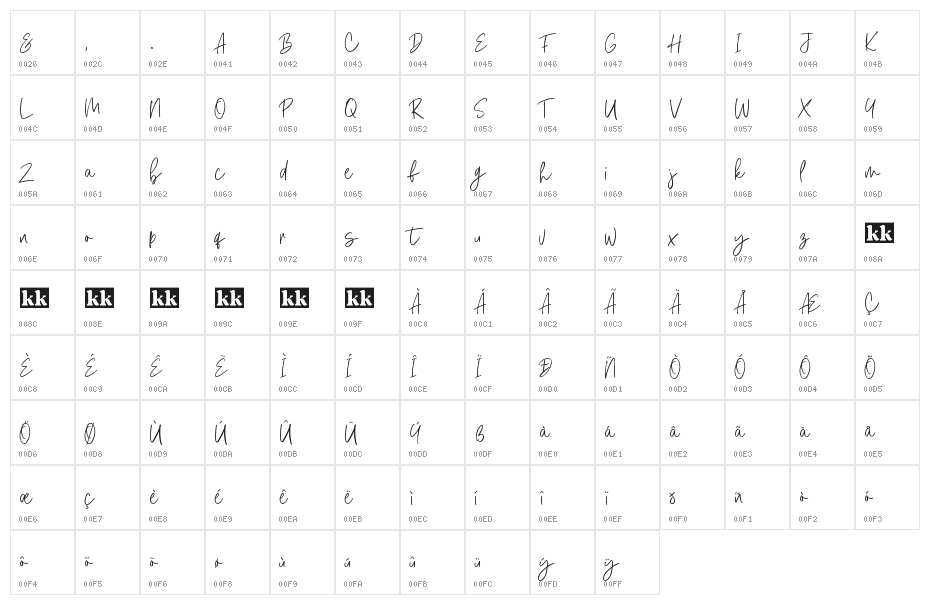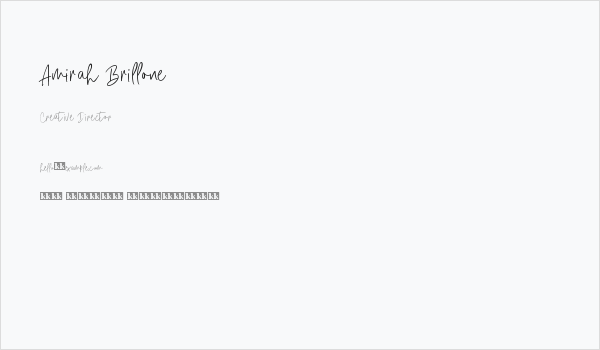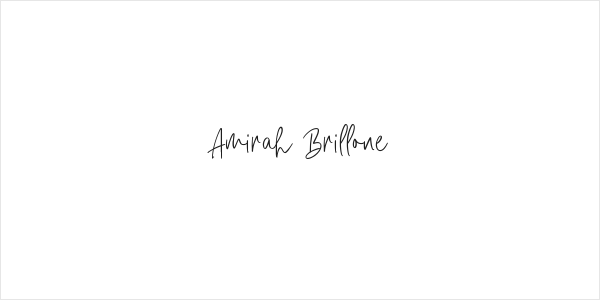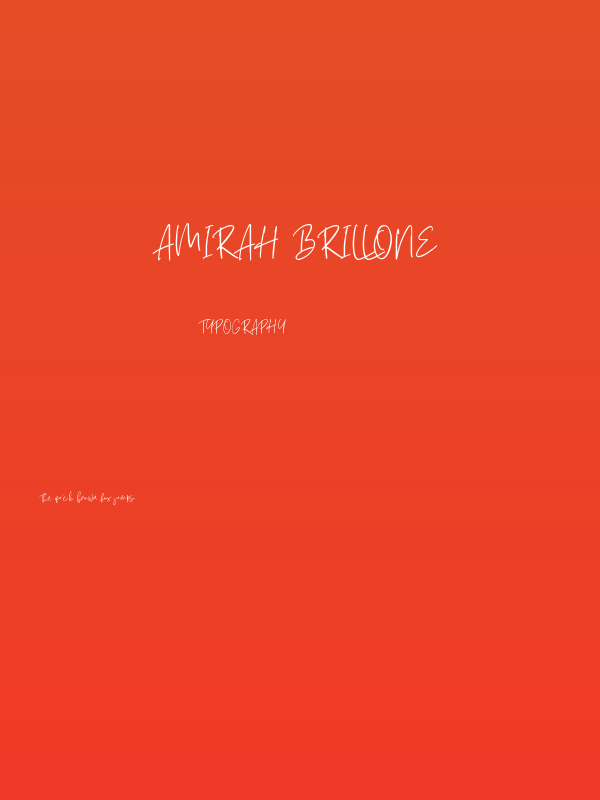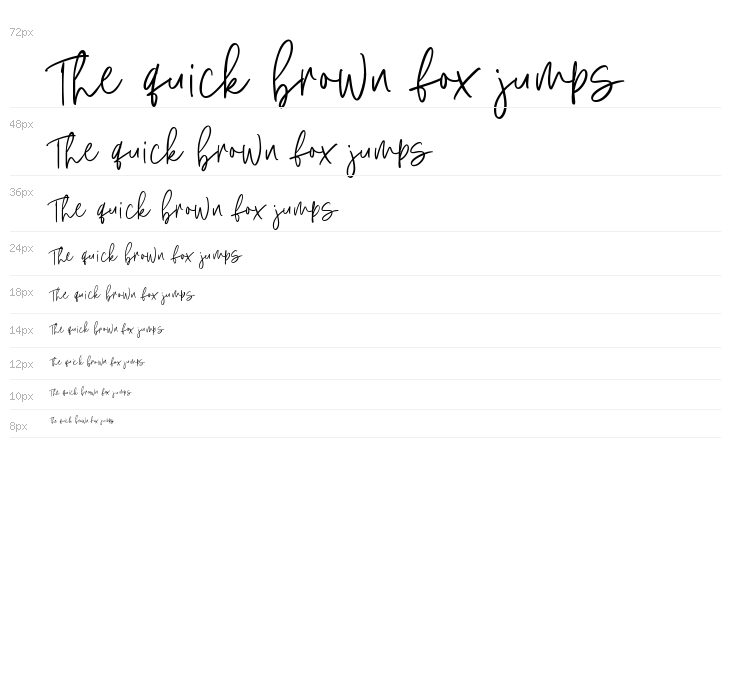
Amirah Brillone Font
Amirah Brillone Description
This font features a lively and expressive handwritten style, characterized by its fluid and dynamic strokes. The uppercase letters exhibit a playful yet elegant flair, with varying line thickness that adds a sense of movement and energy. The lowercase letters maintain a consistent flow, complementing the uppercase with their smooth curves and loops. The numerals and special characters are crafted with the same attention to detail, ensuring a cohesive look across all elements. This font's unique personality makes it ideal for projects that require a personal touch or a creative edge.
| Proposed Projects | Ideal for wedding invitations, greeting cards, branding projects, and social media graphics. |